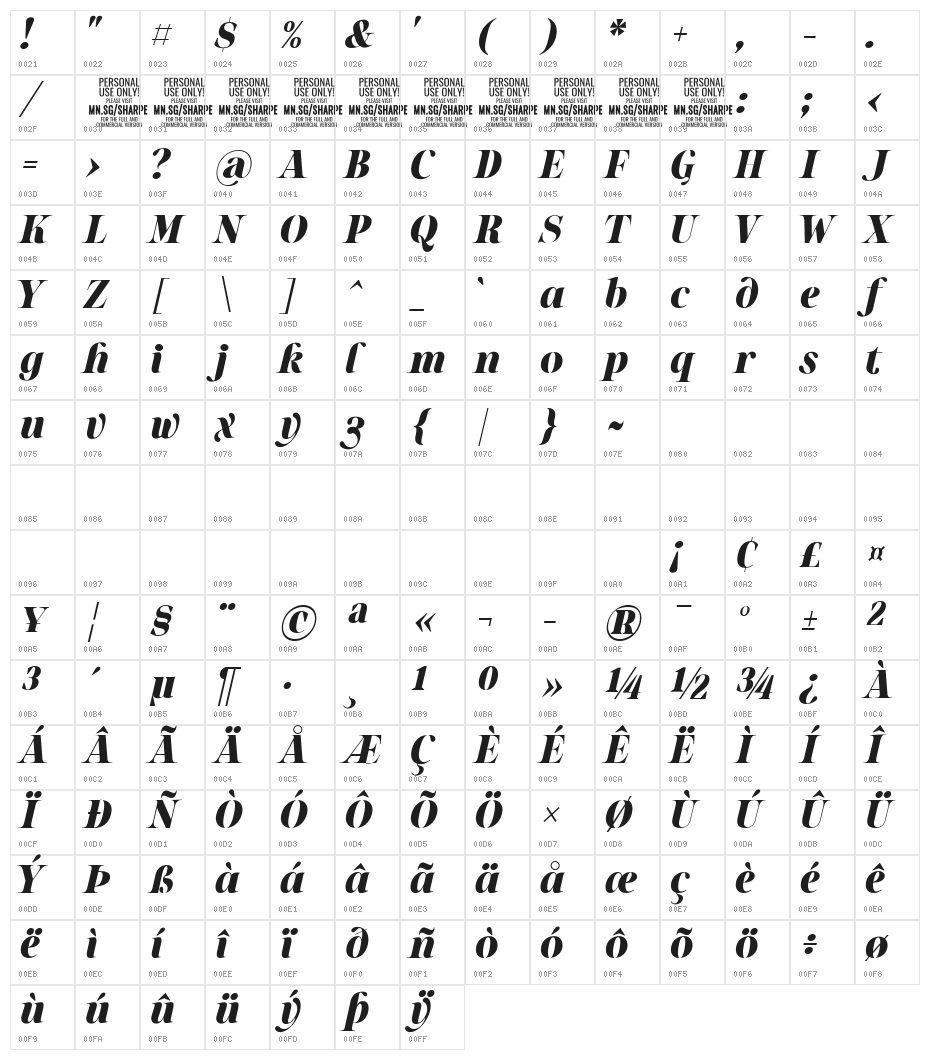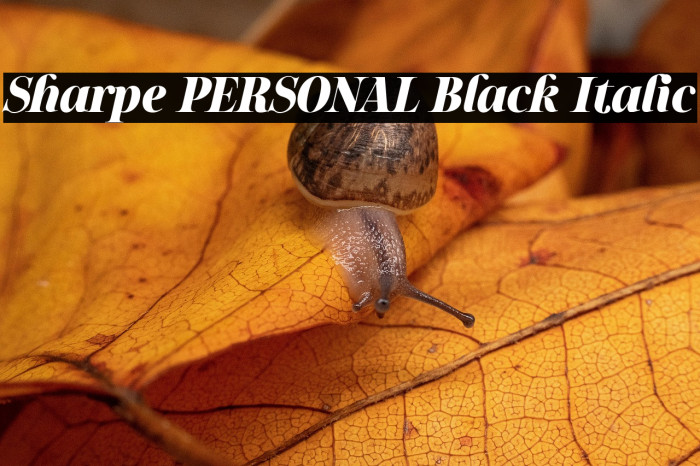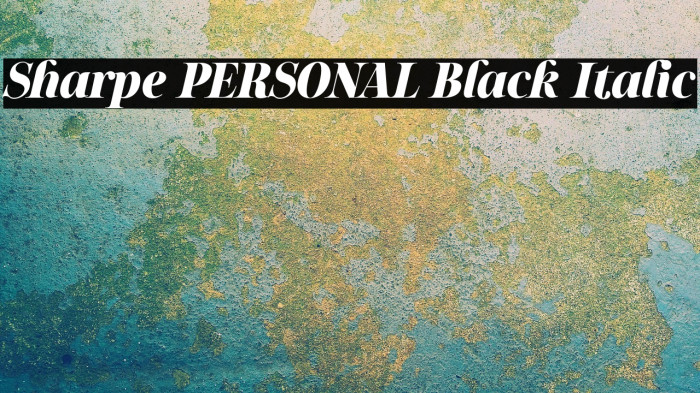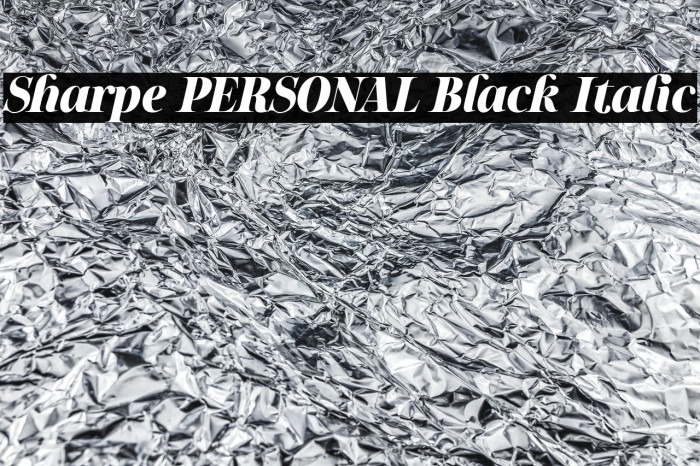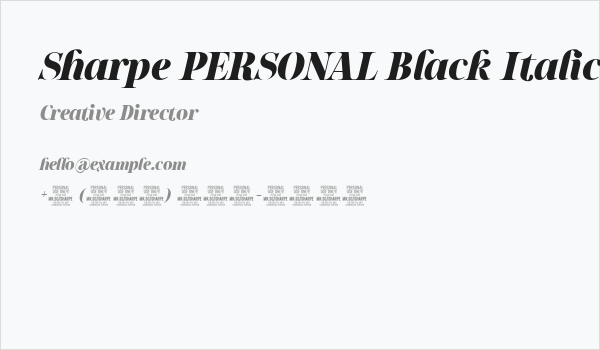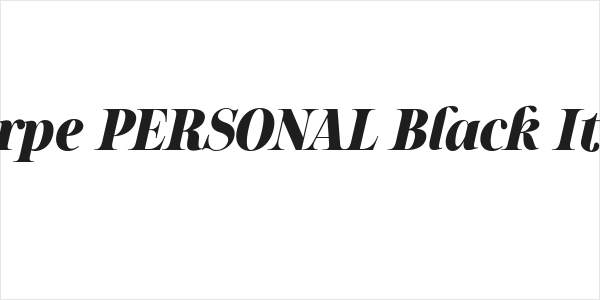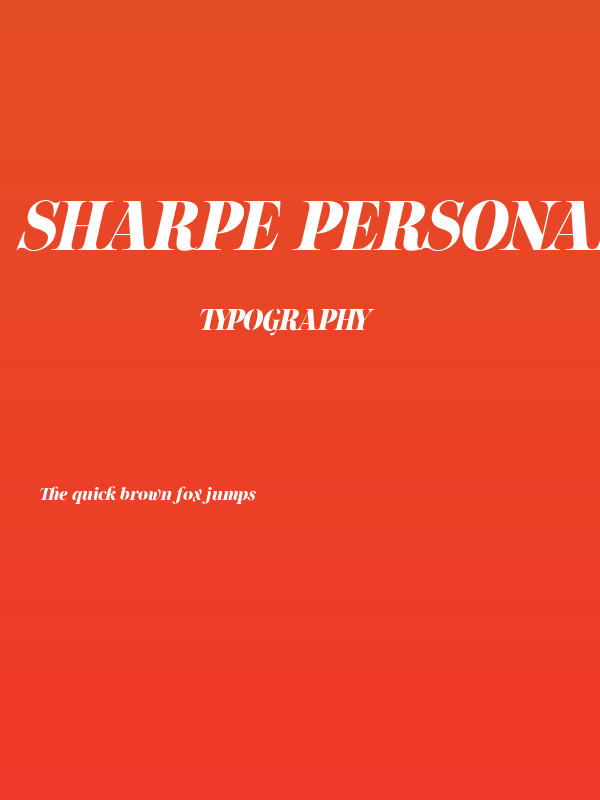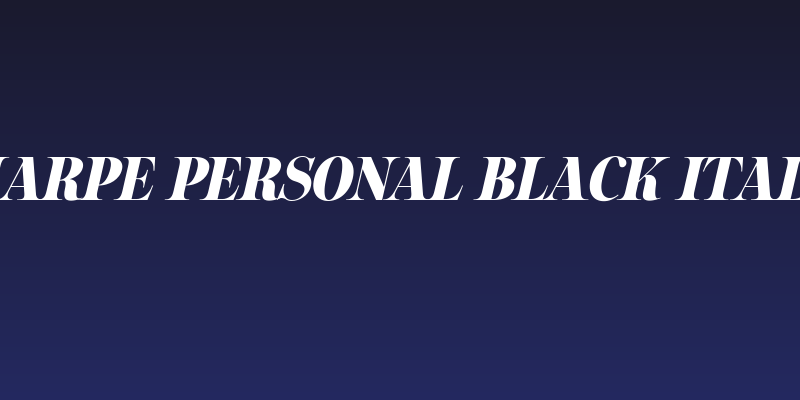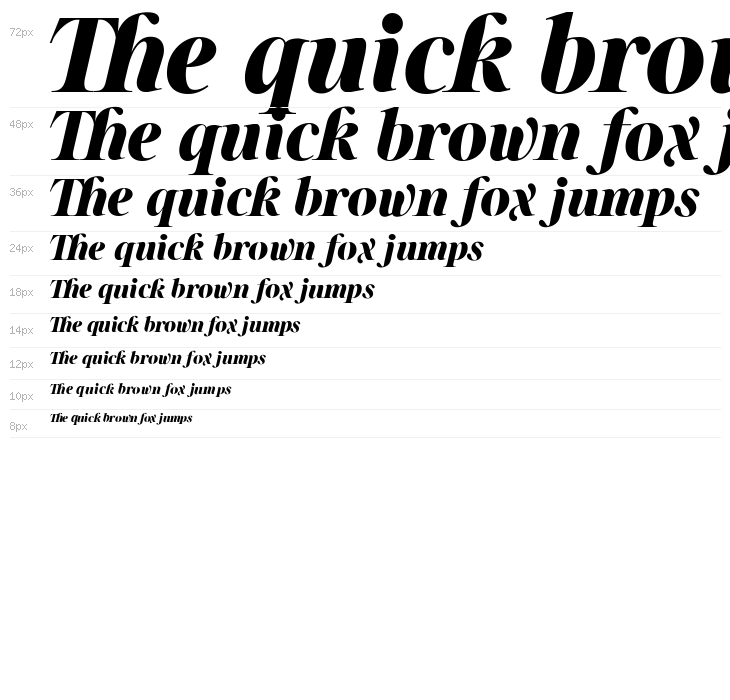
Sharpe PERSONAL Black Italic Font
Sharpe PERSONAL Black Italic Description
This font exhibits a bold and dynamic style with a strong italic slant, giving it a sense of motion and elegance. The characters are thick and robust, providing a commanding presence on the page. The serifs are pronounced, adding a touch of classic sophistication, while the italic angle enhances the overall fluidity and grace of the text. The uppercase letters are particularly striking, with a dramatic flair that makes them ideal for attention-grabbing headlines. The lowercase letters maintain a consistent style, ensuring readability while still contributing to the font's overall bold aesthetic. The numerals and special characters are designed to match the font's strong and stylish appearance, making them suitable for a variety of design contexts.